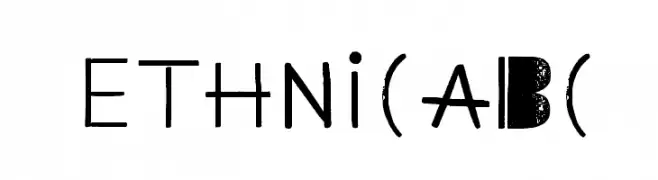
A lively, flowing script font with elegant curves and a handwritten style.
A bold, playful handwritten font with rounded edges and thick strokes.
A bold, italicized sans-serif font with a modern, dynamic style.
A dynamic and artistic cursive font with elegant curves and varying stroke thickness.
An elegant script font with calligraphic influences, perfect for creative projects.
Handwritten, calligraphic Arabic numerals with expressive strokes.
A classic serif font with elegant, traditional letterforms and balanced contrast.
A modern, geometric sans-serif font with clean lines and balanced proportions.
A bold, geometric font with cultural flair and high legibility.
A geometric and modern font with a digital, futuristic style.
A decorative font with intricate, Middle Eastern-inspired designs and bold, angular strokes.
A pixelated, monospaced font with a retro digital style.
A playful, dotted-line font perfect for creative projects.
A cursive, handwritten-style font with elegant curves and fluid motion.
An elegant italic font with smooth, flowing characters.
A classic serif font with elegant strokes and high contrast.
A bold, 3D shadow font with a retro, artistic style.
An elegant script font with flowing, cursive letters and ornate flourishes.
A bold, geometric font with uniform strokes and a modern touch.
A bold, modern font with strong, thick strokes and a classic touch.
A geometric, abstract font with bold, uniform lines and a modern, minimalist style.
A bold, decorative font with artistic and dynamic character shapes.
A bold, 3D geometric font with a modern and abstract design.
A bold, decorative font with cactus-like thorn details.
A bold and artistic font with unique curves and angles.
A bold, distressed font with a grungy, urban style.
A bold, particle-textured font with a dynamic and chaotic style.
A playful, italicized font with medium contrast and a dynamic feel.
A bold, dynamic font with slanted characters and strong strokes.
A bold, modern font with thick strokes and geometric shapes.